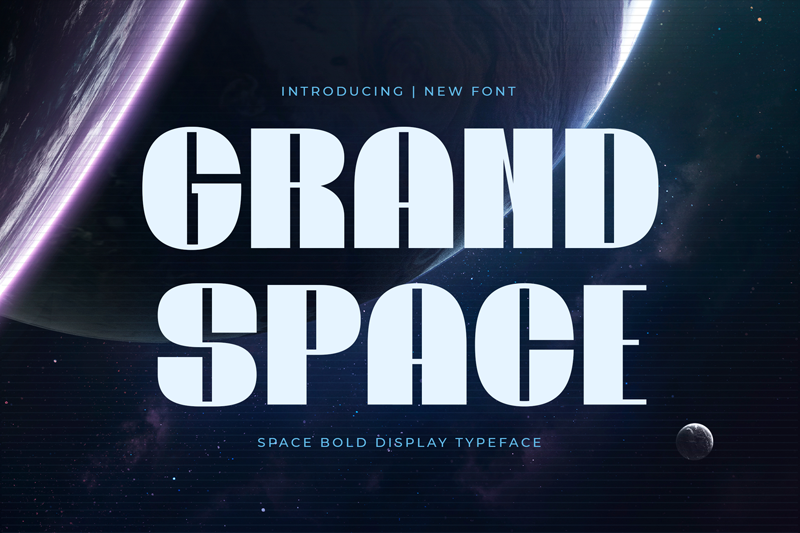
Font name: | Grand Space |
Author: | Type Factory |
Note by Type Factory | |
Grand Space is space bold display font in a modern style. Perfect for games, sci-fi themes, and space adventures! Full Version Download Here : https://typefactory.co/product/grand-space-space-bold-typeface/ https://www.creativefabrica.com/product/grand-space/ref/501262/ |